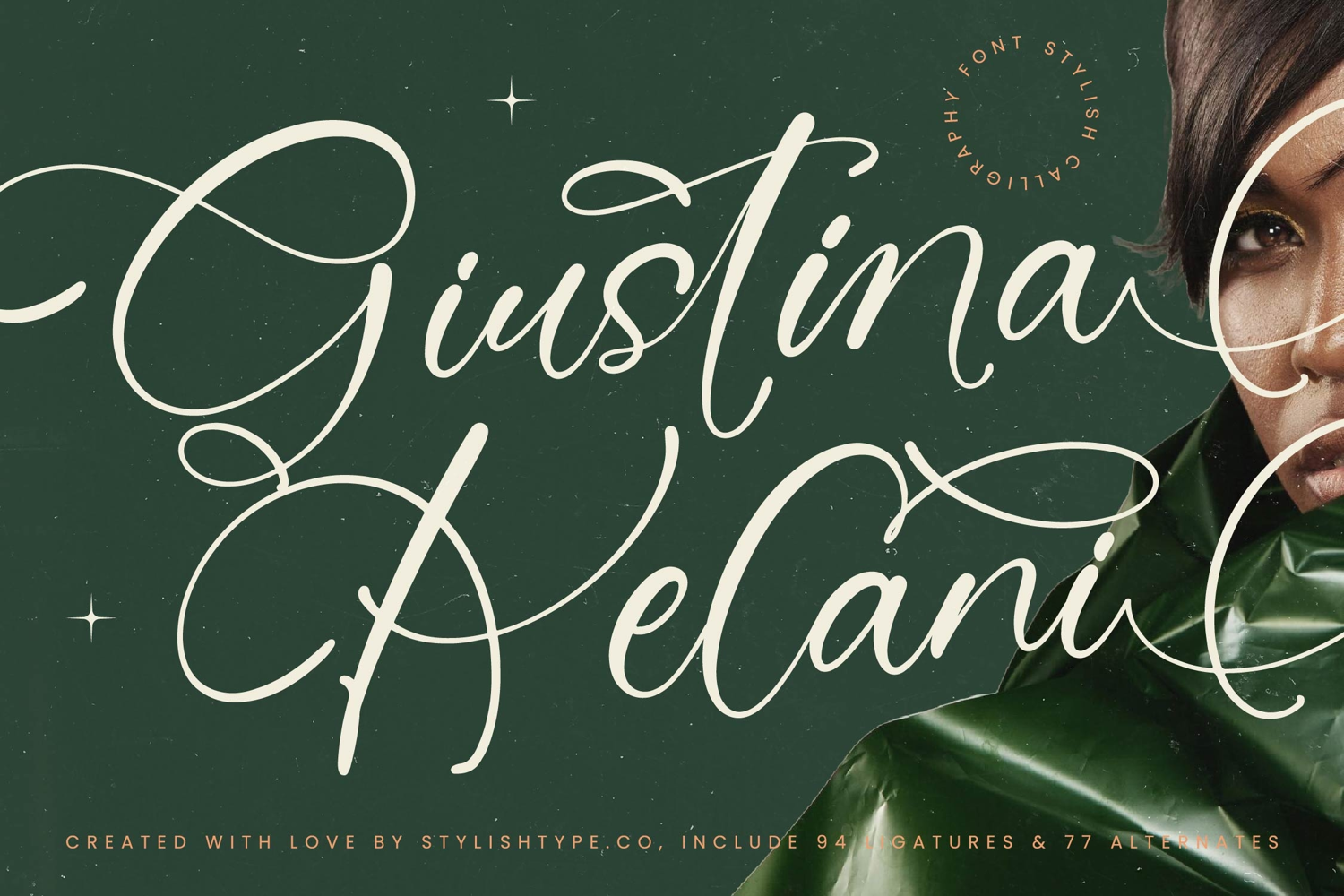
Giustina Kelani - Stylish Calligraphy Font
Giustina Kelani Italic
Giustina Kelani
Giustina Kelani - Stylish Calligraphy Font includes a rich set of alternates, swashes, and ligatures that allow for endless stylistic variations. These proprietary glyphs ensure that every composition feels authentically handcrafted and unique, enabling you to tailor the script precisely to your brand’s voice. This deep level of detail guarantees visual authenticity and maximized design flexibility across all platforms.